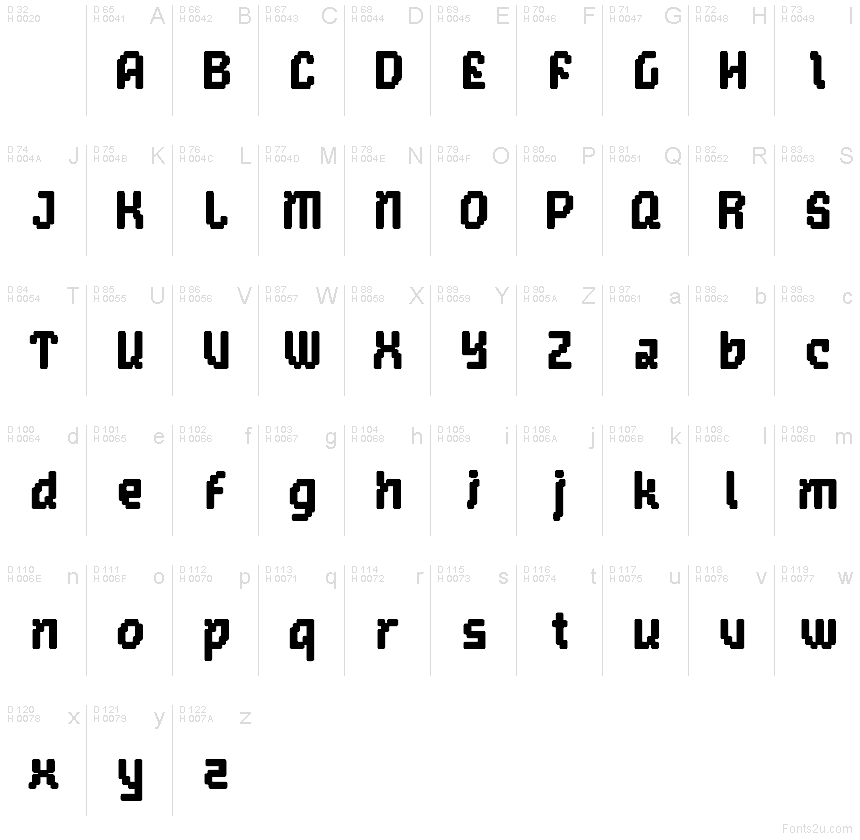
CS Golem Regular Demo
CS Golem font by Craft Supply Co. is a free bold digital display font with iconic block letters of uniform height. This font sports a generically pixelated look that was delivered using geometric shapes that only vary by rotation and scale. These visual properties come together to deliver a retro-inspired, hefty, and message-driven character style.
CS Golem is an ideal option for video game designs, minimalist posters, building block-themed content items, simple logotypes, video title sequences, retro book covers, album covers, clothing pieces or sports jerseys. This font may also be used on erect monument signs as an interesting option outside the digital sphere.